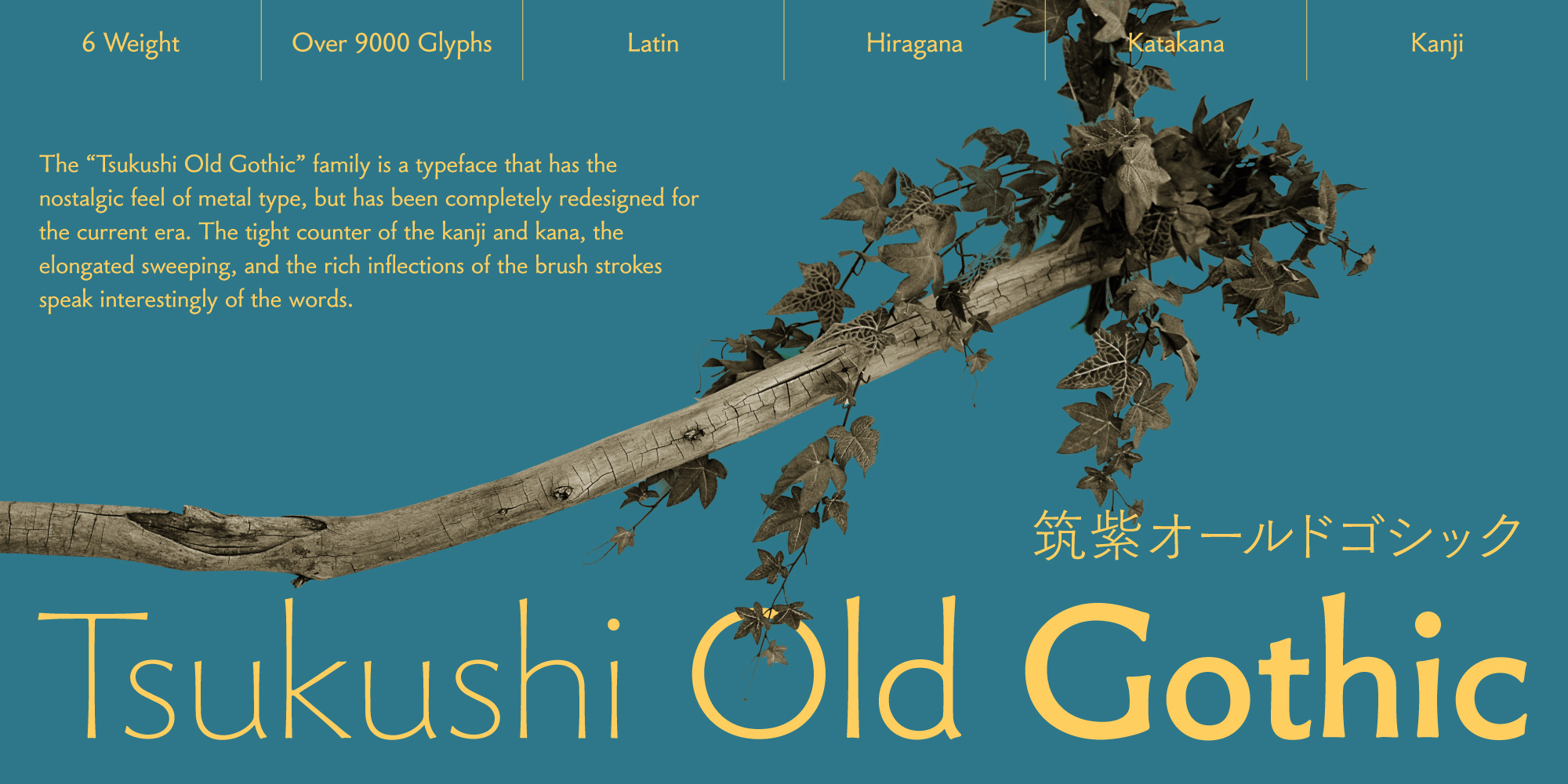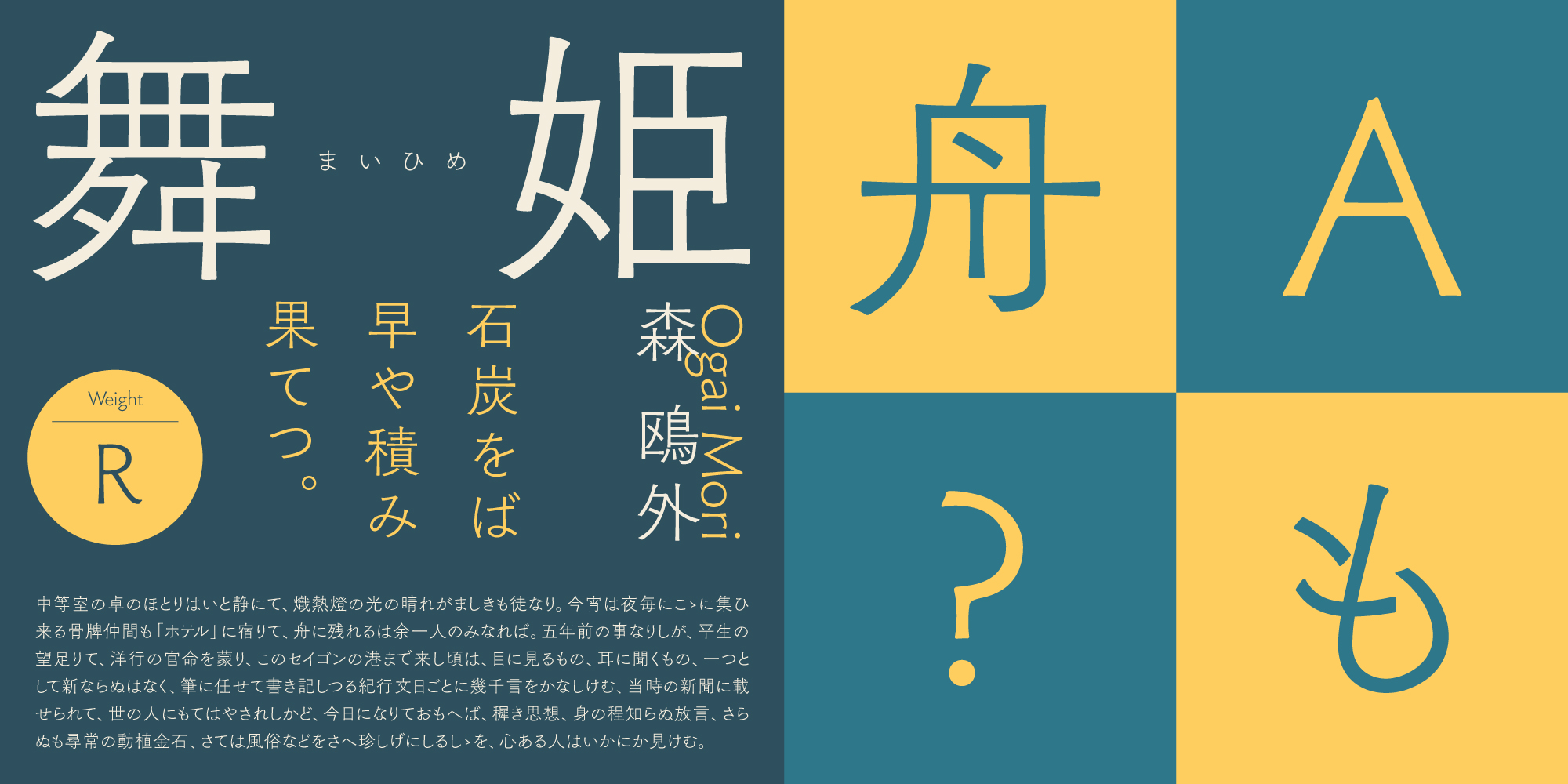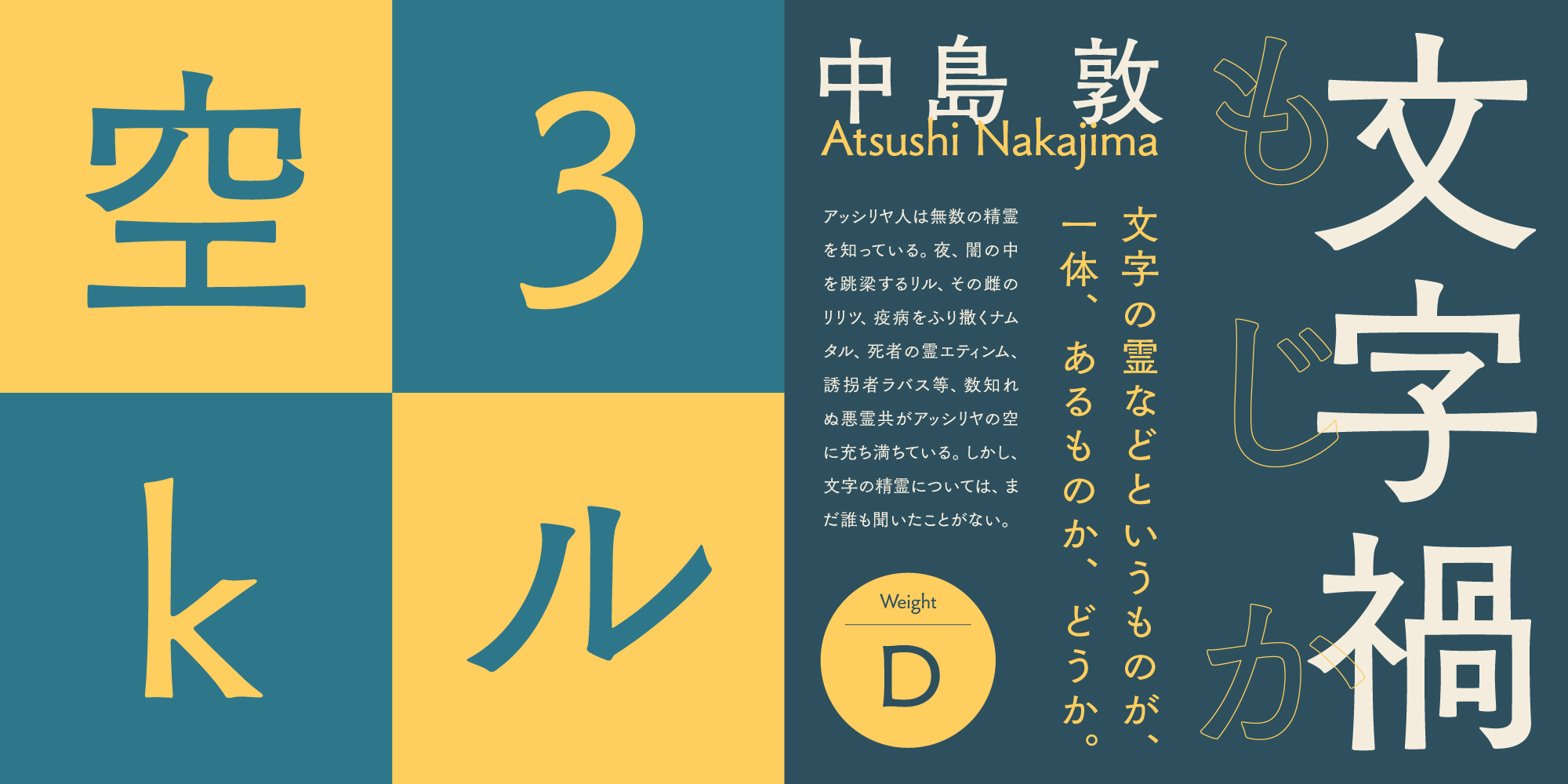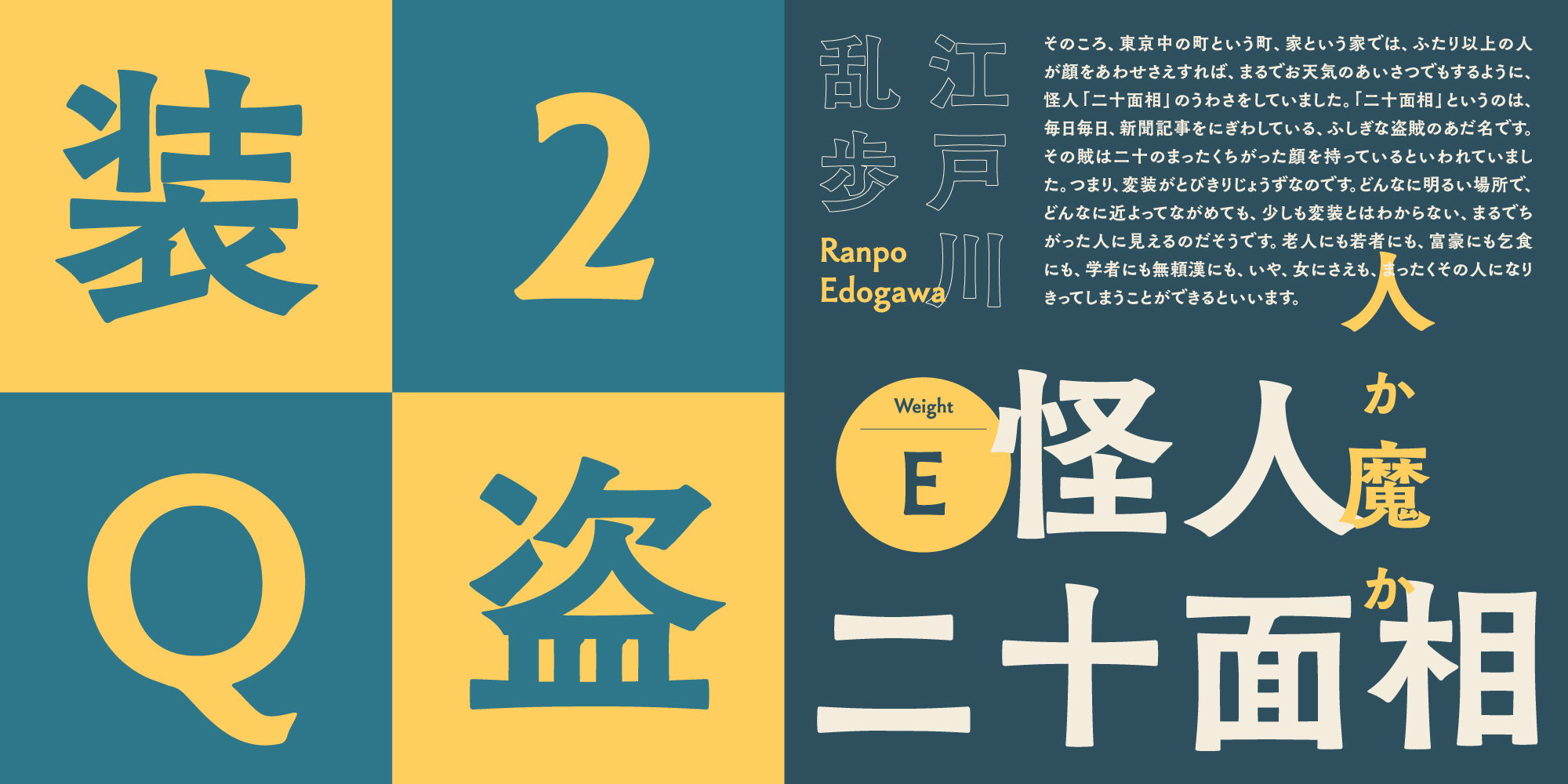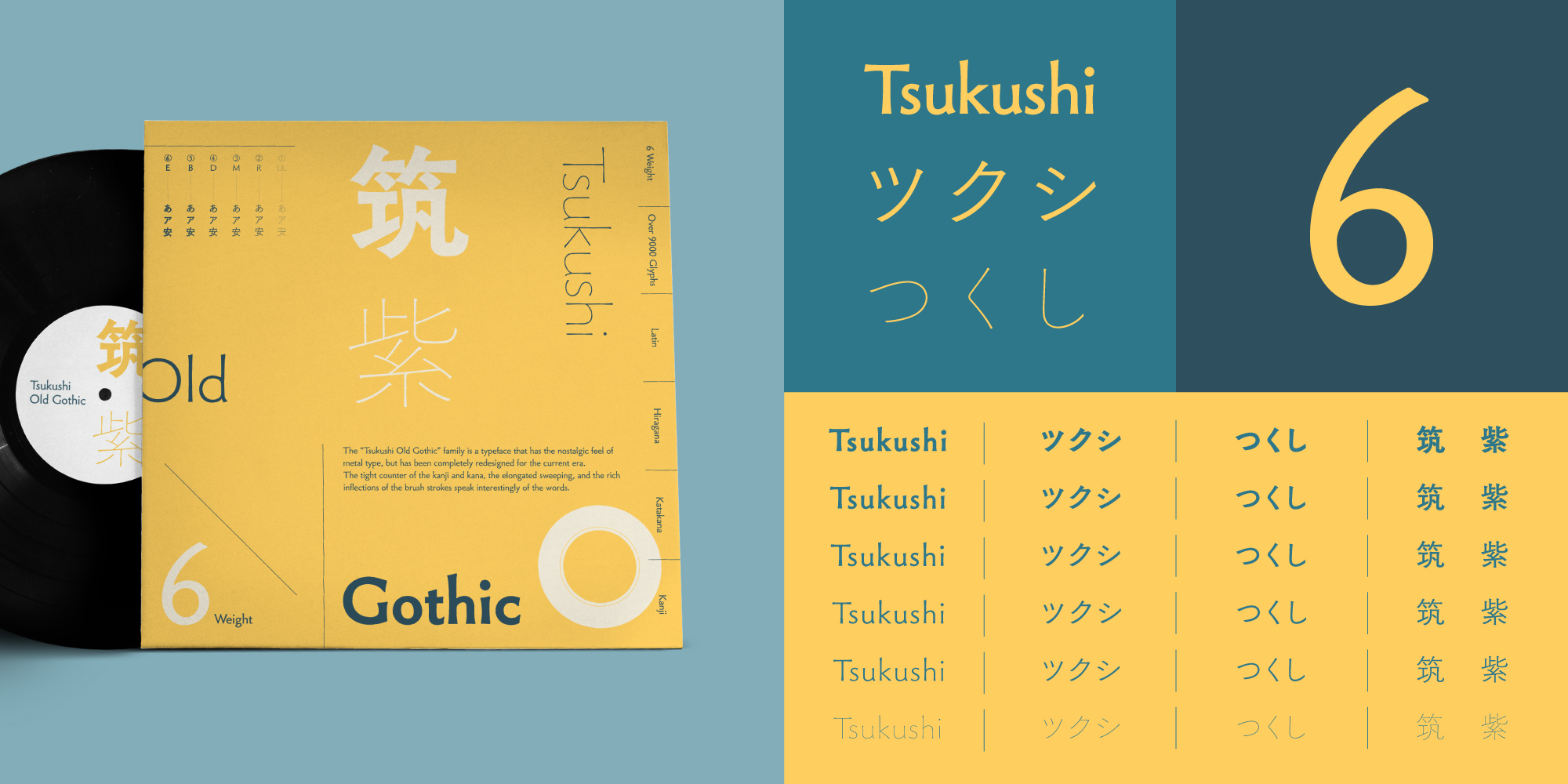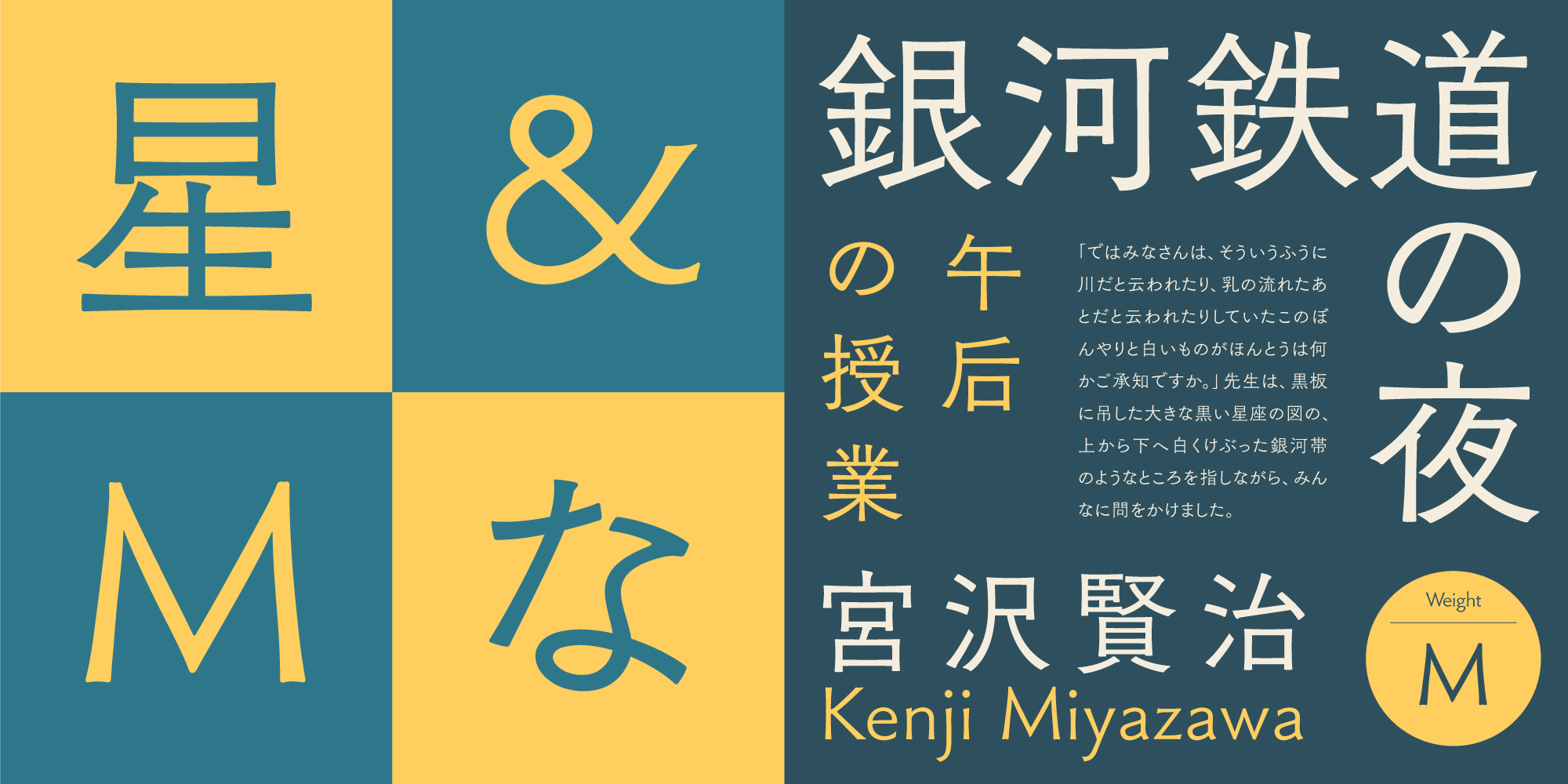
Fontworks Inc. added four new weights to the popular typeface "TsukuOldGothic "on Thursday, September 5, 2024.
"TsukuOldGothic" 4 new weights added
"TsukuOldGothic" is a completely new typeface designed in 2014 by Fontworks type design director Shigenobu Fujita, while imagining a Gothic font that seems to have existed in the metal type era.
The tight bosom of kanji and kana, the stretchy edges, and the rich inflection that makes you feel the remnants of the brush speak the words with dignity.
The four new weights that will be added this time are "R (regular) / M (medium) / D (demi-bold) / E (extra bold)". In total, it became a family of 6 weights.
The weights added this time are easy to use for Text and expand the range of expression.
* Weight refers to the Weight of the font. In the case of TsukuOldGothic, the existing typeface "UL (Ultralight)" is the thinnest, and the newly added "E" is the thickest font.
TsukuOldGothic R (Regular)
TsukuOldGothic M (Medium)
TsukuOldGothic D (Demibold)
TsukuOldGothic E (Extra Bold)
Profile of Shigenobu Fujita
Born in Fukuoka Prefecture in 1957. In 1975, he joined the character design department of phototypesetter Sha-Ken Co., Ltd. In 1998, he joined Fontworks Inc. and developed numerous typefaces. In 2004, he created the Tsukushi typeface, and in 2017, the Tsukushi typeface series won the Good Design Award. He has also received numerous other design awards. In 2016, he appeared on NHK's "Professional: Work Style."
In January 2024, he released the book "Tsukushi Typeface and Fujita Shigenobu" (PIE International).